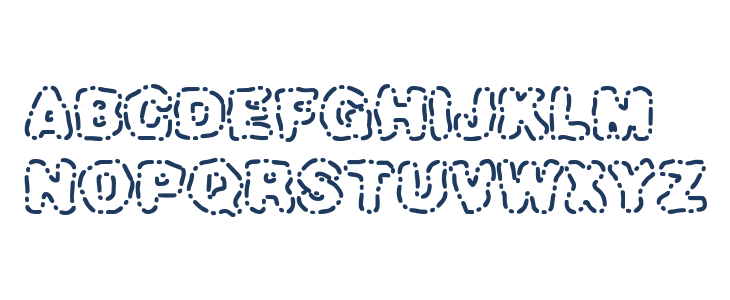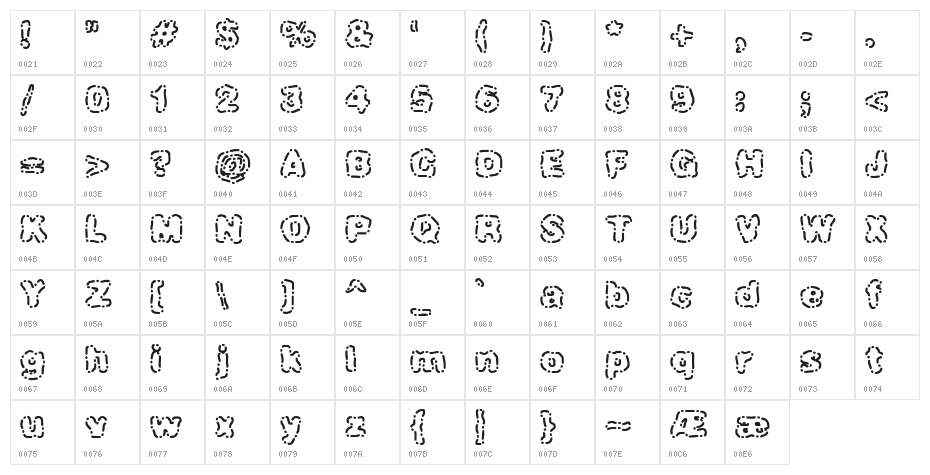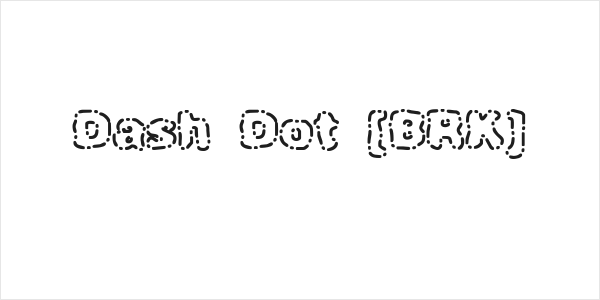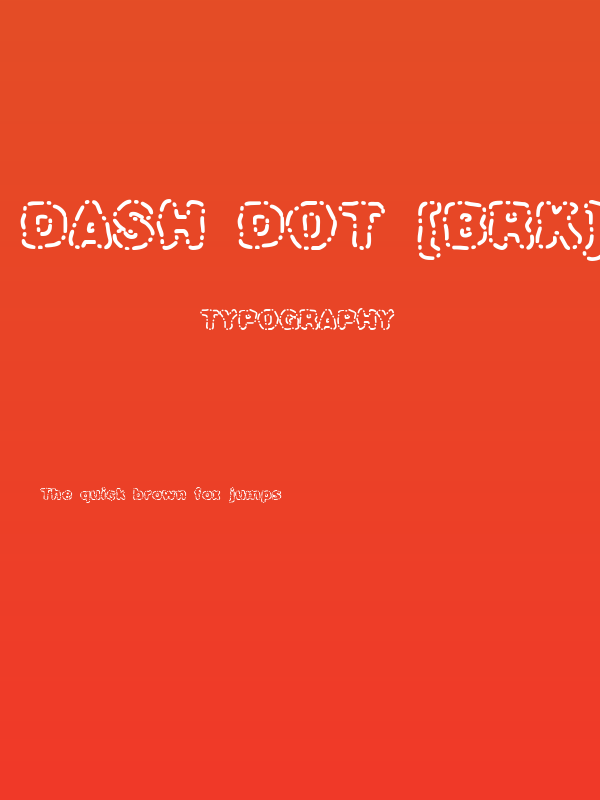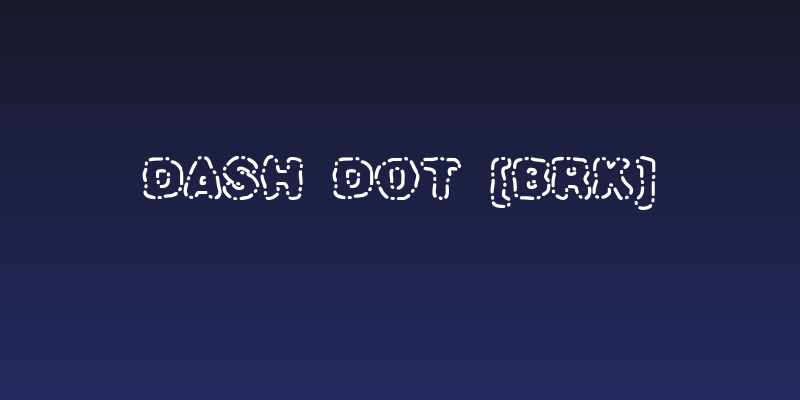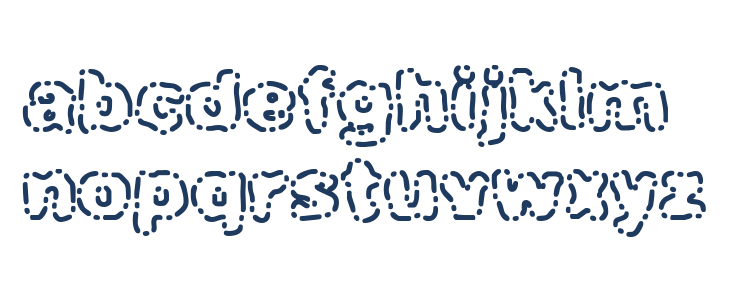
Dash Dot [BRK] Font
Dash Dot [BRK] Description
This font features a unique design where each character is composed of a series of dashes and dots, creating a playful and eye-catching appearance. The characters are bold and rounded, giving them a friendly and approachable feel. The use of dashes and dots adds a sense of movement and rhythm, making it ideal for creative and informal projects. The font maintains consistent spacing and alignment, ensuring readability despite its unconventional style. Its distinct look makes it suitable for attention-grabbing headlines or artistic designs.
| Overall Style | Playful, Creative |
| Proposed Projects | Ideal for children's books, playful branding, event posters, and creative digital content. |